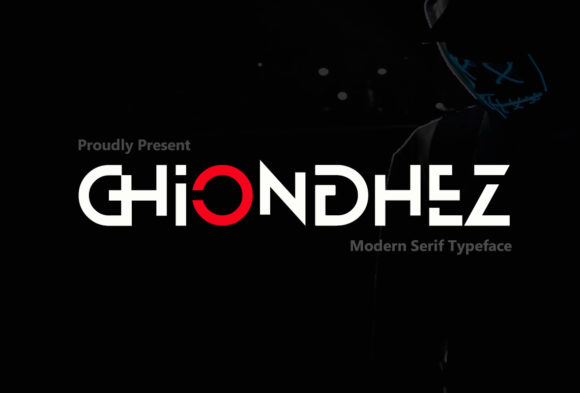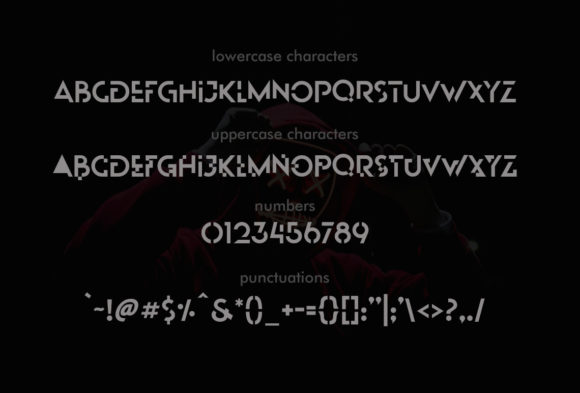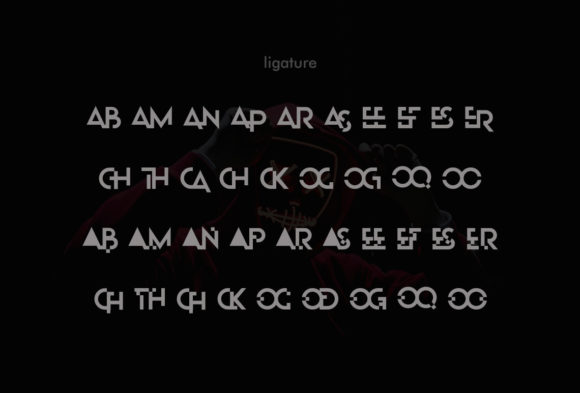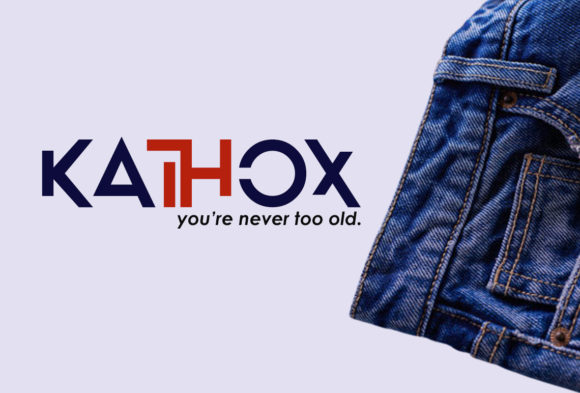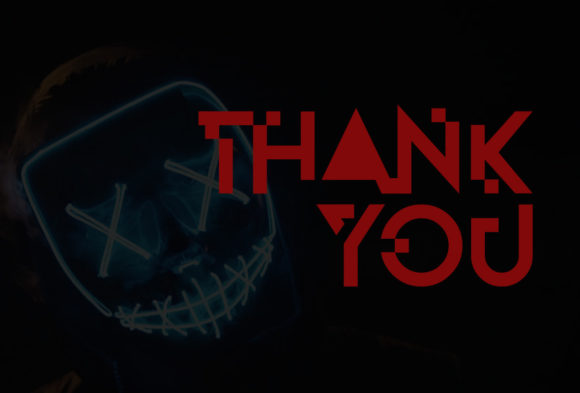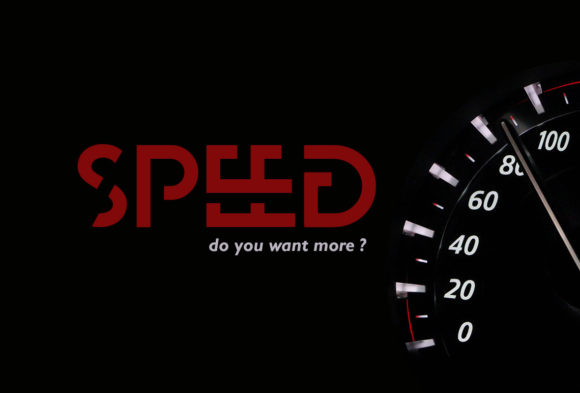
Introducing Ghiondhez Font: The Ultimate Modern Display Font for Bold Designs
In the world of design, fonts play a crucial role in making your project stand out from the crowd. If you’re looking for a modern and bold display font that adds a cool, futuristic touch to your designs, look no further than Ghiondhez Font. This stunning font is perfect for designers and crafters who want to create eye-catching projects that leave a lasting impression.
What Makes Ghiondhez Font So Special?
Ghiondhez Font is a modern and bold display font that is designed to make your designs pop. Its unique characters are perfect for any project that requires a cool, futuristic touch. Whether you’re working on a branding project, a website design, or a crafting project, Ghiondhez Font is the perfect choice. Its modern and sleek design ensures that your project looks contemporary and visually appealing.
One of the standout features of Ghiondhez Font is that it is PUA (Private Use Area) encoded. This means that you can access all of the glyphs and swashes with ease, giving you complete creative control over your project. With PUA encoding, you can easily access the font’s extensive character set, including alternative characters, ligatures, and swashes. This makes it easy to add a personal touch to your designs and create unique and eye-catching projects.
Ghiondhez Font is perfect for designers and crafters who want to create bold and eye-catching projects. Its modern and sleek design makes it ideal for a wide range of projects, including:
• Branding and logo design
• Website design and development
• Crafting and scrapbooking
• Graphic design and illustration
• Advertising and marketing materials
Key Features of Ghiondhez Font
Here are some of the key features that make Ghiondhez Font an excellent choice for designers and crafters:
• Modern and bold display font
• PUA encoded for easy access to glyphs and swashes
• Perfect for projects that require a cool, futuristic touch
• Extensive character set, including alternative characters, ligatures, and swashes
• Easily accessible and editable
Tips and Tricks for Getting the Most Out of Ghiondhez Font
Here are some tips and tricks for getting the most out of Ghiondhez Font:
• Experiment with different font sizes and colors to create visual interest
• Use the font’s extensive character set to add a personal touch to your designs
• Combine Ghiondhez Font with other fonts to create a unique and eye-catching design
• Use the font’s swashes and ligatures to add a touch of elegance to your designs
Font Name Ghiondhez Font
Author rulihoki studio
In conclusion, Ghiondhez Font is a modern and bold display font that is perfect for designers and crafters who want to create eye-catching projects. Its unique characters, PUA encoding, and extensive character set make it an excellent choice for a wide range of projects. With its ease of use and versatility, Ghiondhez Font is sure to become a staple in your design arsenal.